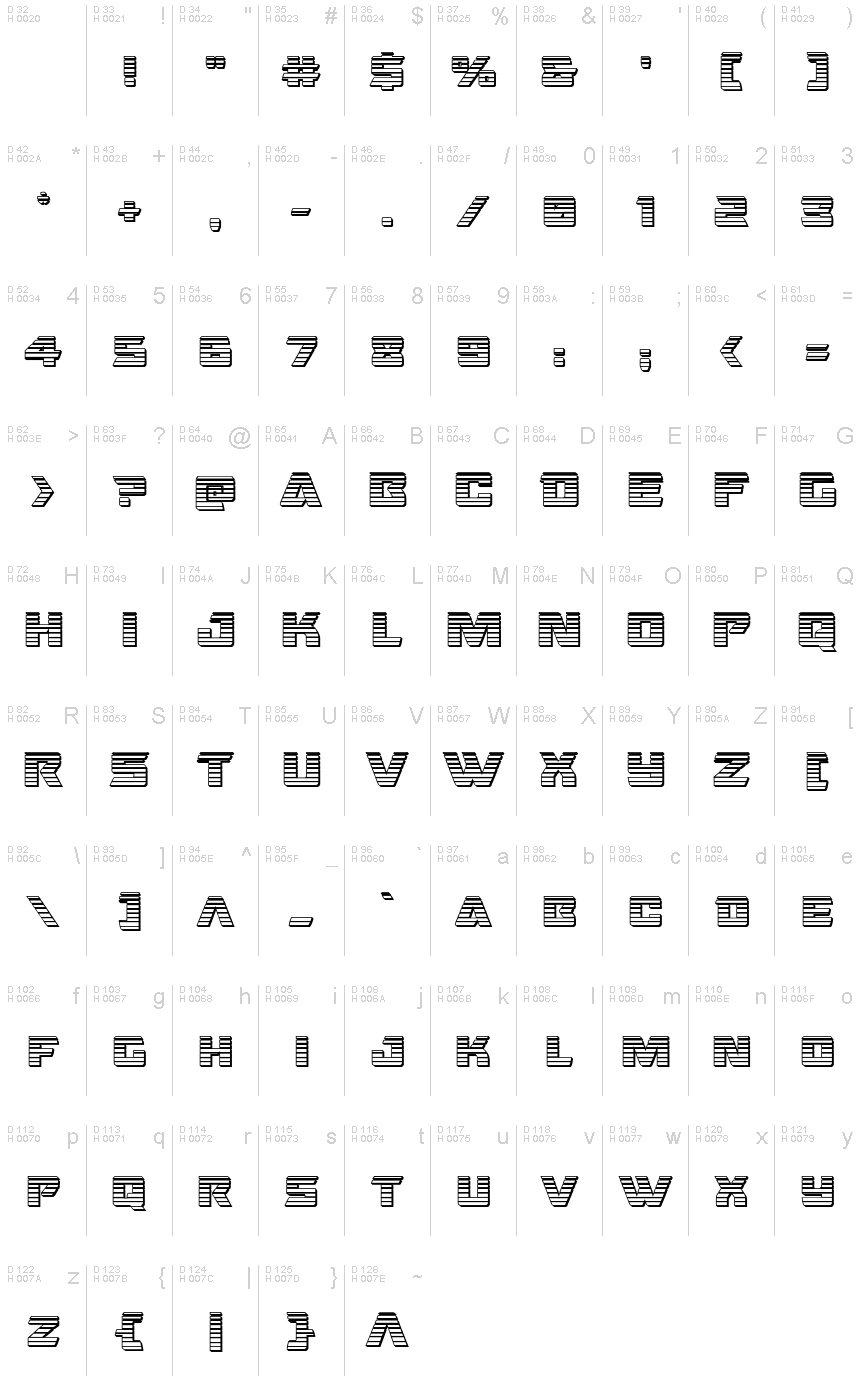
Oceanic Drift Chrome
Oceanic Drift Chrome is a striking display font that exudes a futuristic allure. Crafted by designer Daniel Zadorozny, its bold, expanded strokes convey a sense of technological prowess and innovation. The font's glimmering, chrome-like finish lends an air of sleekness and sophistication, making it an ideal choice for headlines, branding, and promotional materials with a modern, cutting-edge aesthetic. Its distinct personality and versatility make Oceanic Drift Chrome a captivating typographic tool for designers seeking to elevate their work with a touch of high-tech elegance.
This font's expansive width and strong visual impact make it well-suited for showcasing key messages, product names, or attention-grabbing slogans. Its bold, eye-catching presence ensures it will command the viewer's attention, making it a powerful asset in digital and print design projects that demand a striking typographic statement.